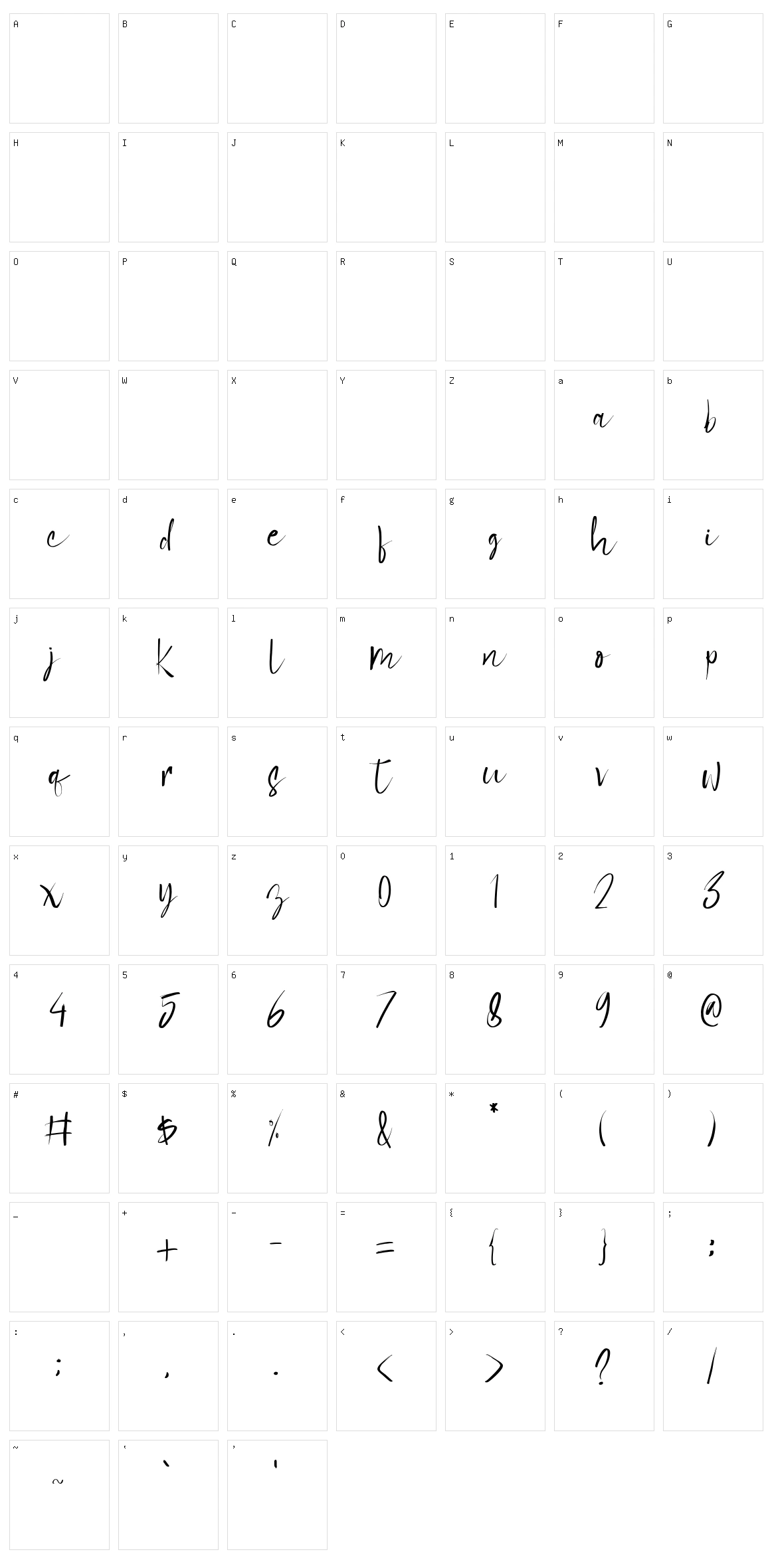
The free font Breaking Glass is carefully designed by Fontysia, showcasing a thoughtful balance of creativity and usability and falls under the Script font style. When you download the ZIP file, it contains only 29.68 KB of font files, making it lightweight and quick to download. Please review the license details below to understand permitted usage and distribution rights. If license information is not available, we recommend using this font for personal projects only or contacting the author directly for commercial usage permissions.